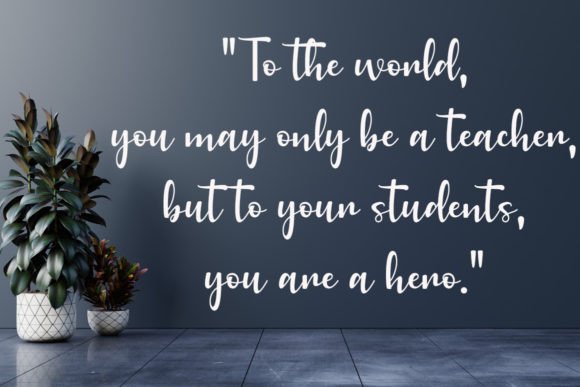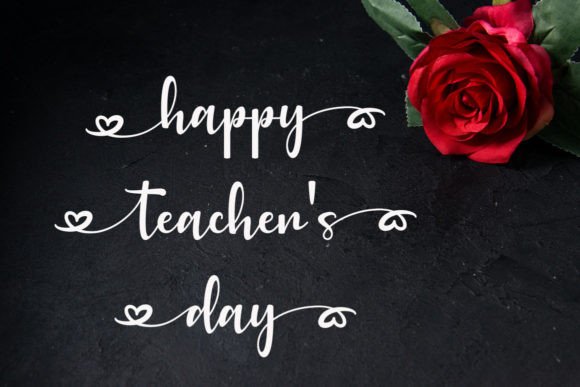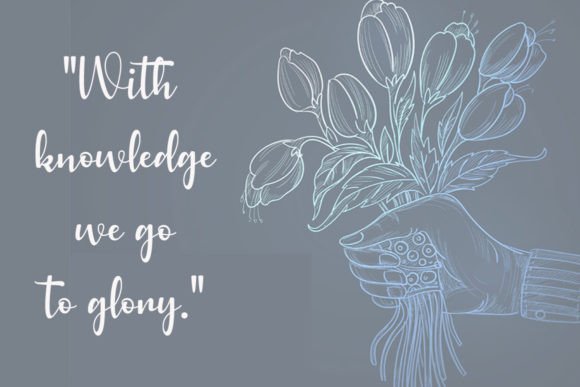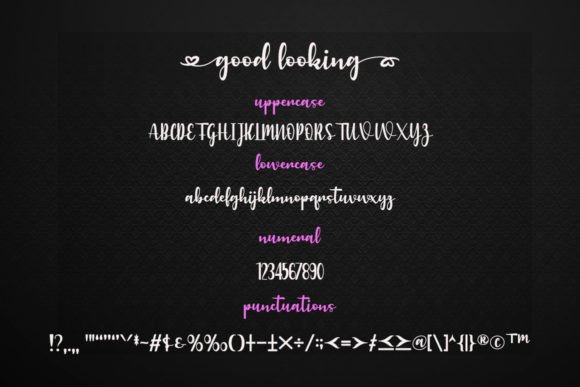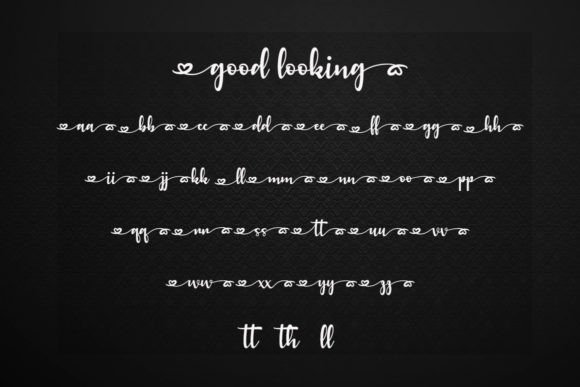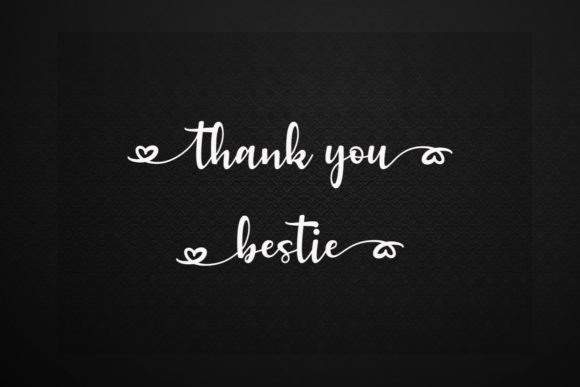
Introduction to Good Looking Font
Good Looking is an enchanting script font perfect for logos, branding, quotes, clothing, tote bags, business cards, websites, and many more.
Fall in love with it, and let it take your projects to the highest level This font is PUA encoded, which means you can access all the glyphs and ligatures with ease.
Key Features of Good Looking Font